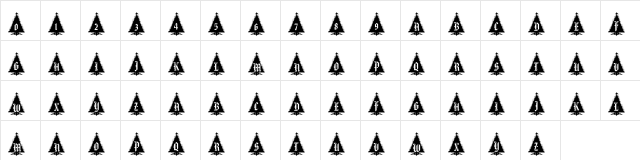
pf_xmas_tree4 Regular
Design Context for pf_xmas_tree4
pf_xmas_tree4 is a composed and adaptable typeface that performs quietly and consistently across a wide range of design contexts.